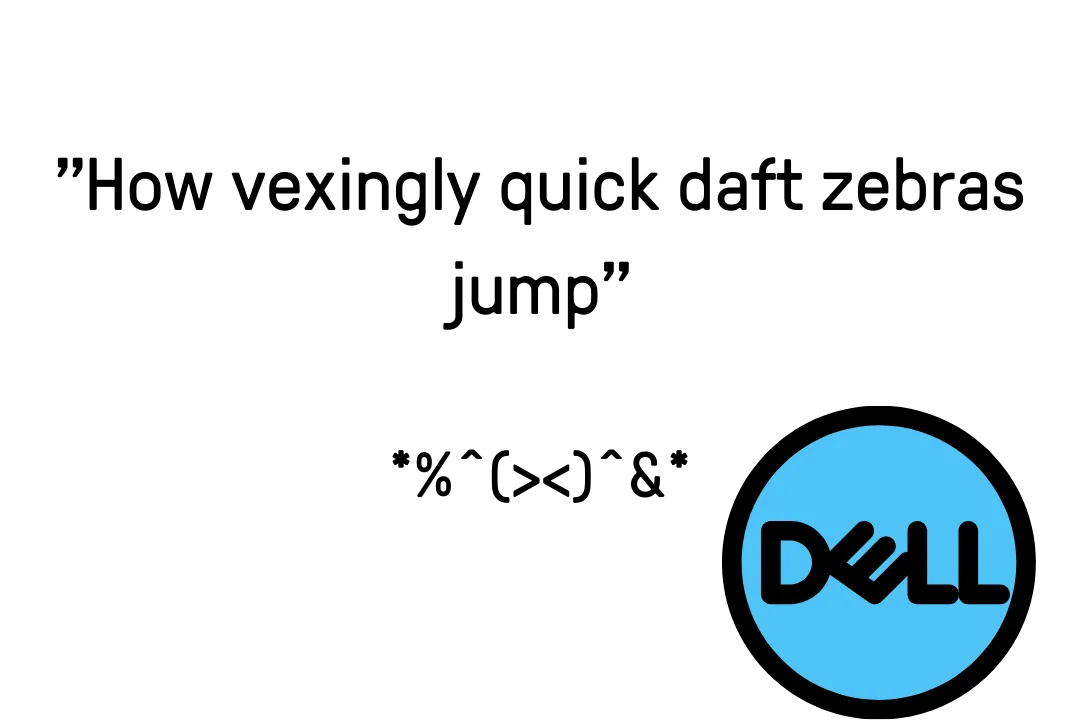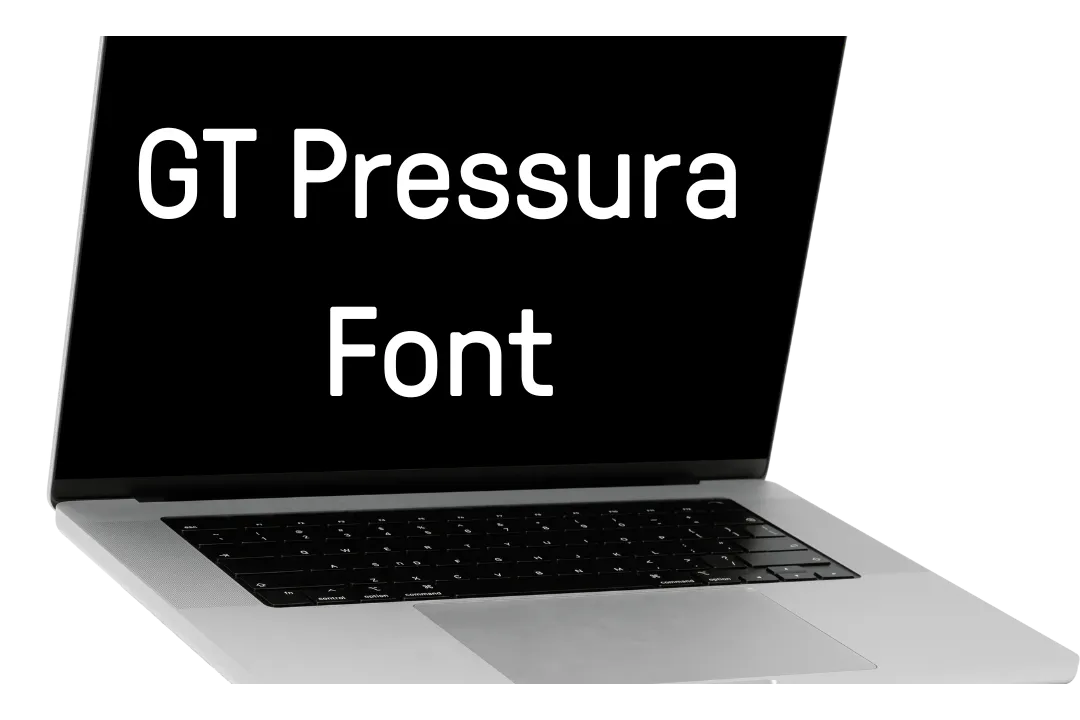
The GT Pressura Font was invented by two famous typographic innovators, Marc Kappeler and Dominik Huber, and is considered a rounded sans serif typeface family. In 2012, this stunning texture was published by the Swiss foundry Grilli Type.
This font includes 533 various types of glyphs and 434 unique structures of alphabet sets such as uppercase letters, symbols, lowercase letters, digits, punctuations, and signs. A similar font of this typeface is arciform sans font. You may get it in both file formats TrueType and OpenType.
Uses of GT Pressura Font
Due to its neat and keen features, you may utilize this gorgeous font for creating lengthy paragraphs, social media posts, advertisements, and many other multiple types of purposes.
As a developer, you should choose the right font for your projects. This font is a perfect choice for headings, titles, and headlines. You can use it for creating invitation card designs, wedding cards, office cards, business cards, and birthday cards.
GT Pressura Font View
What type of font is GT Pressura Font?
The GT Pressura Font was designed by two famous typographic developers, Marc Kappeler and Dominik Huber, and is considered a rounded sans serif typeface family.
Where can I use the GT Pressura Font?
As a developer, you should choose the right font for your projects. This font is a perfect choice for headings, printings, promotional tasks, different software, titles, and headlines.